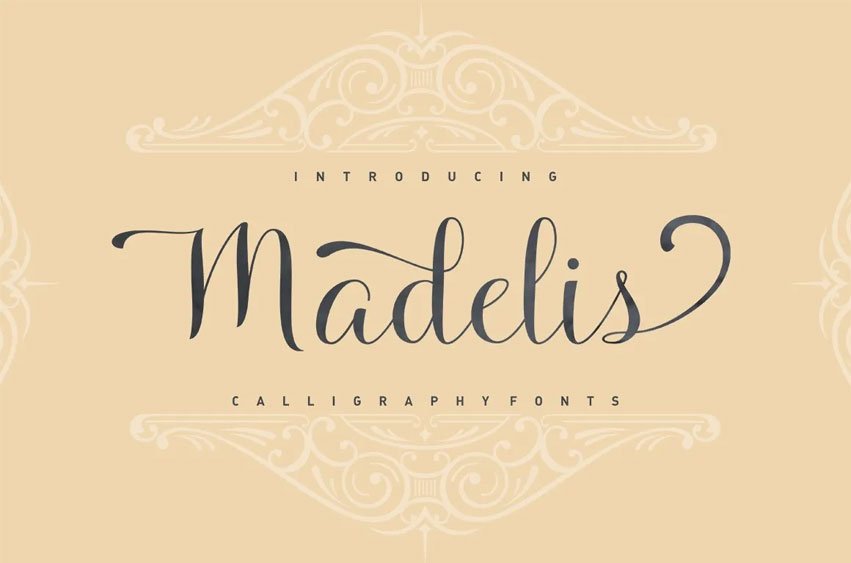
Madelis Font Introducing the latest styles Madelis Script Calligraphy Font with the kind of modern hand scratches, I hope you are interested in this font, if you want to use for your work this font can be used easily and simply because there are a lot of features in it to contain a complete set of letters lower and uppercase letters, assorted punctuation, numbers, and multilingual support.